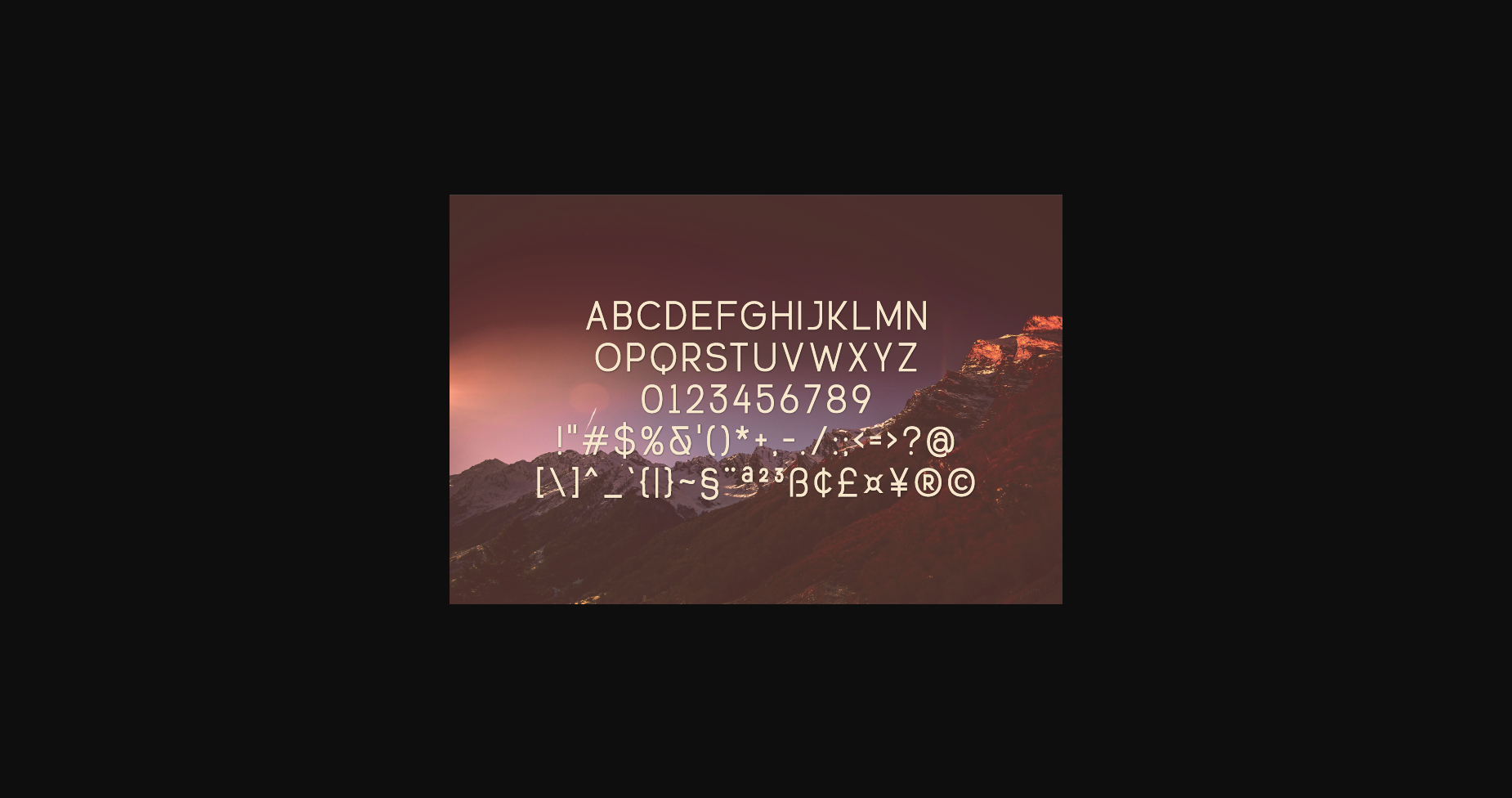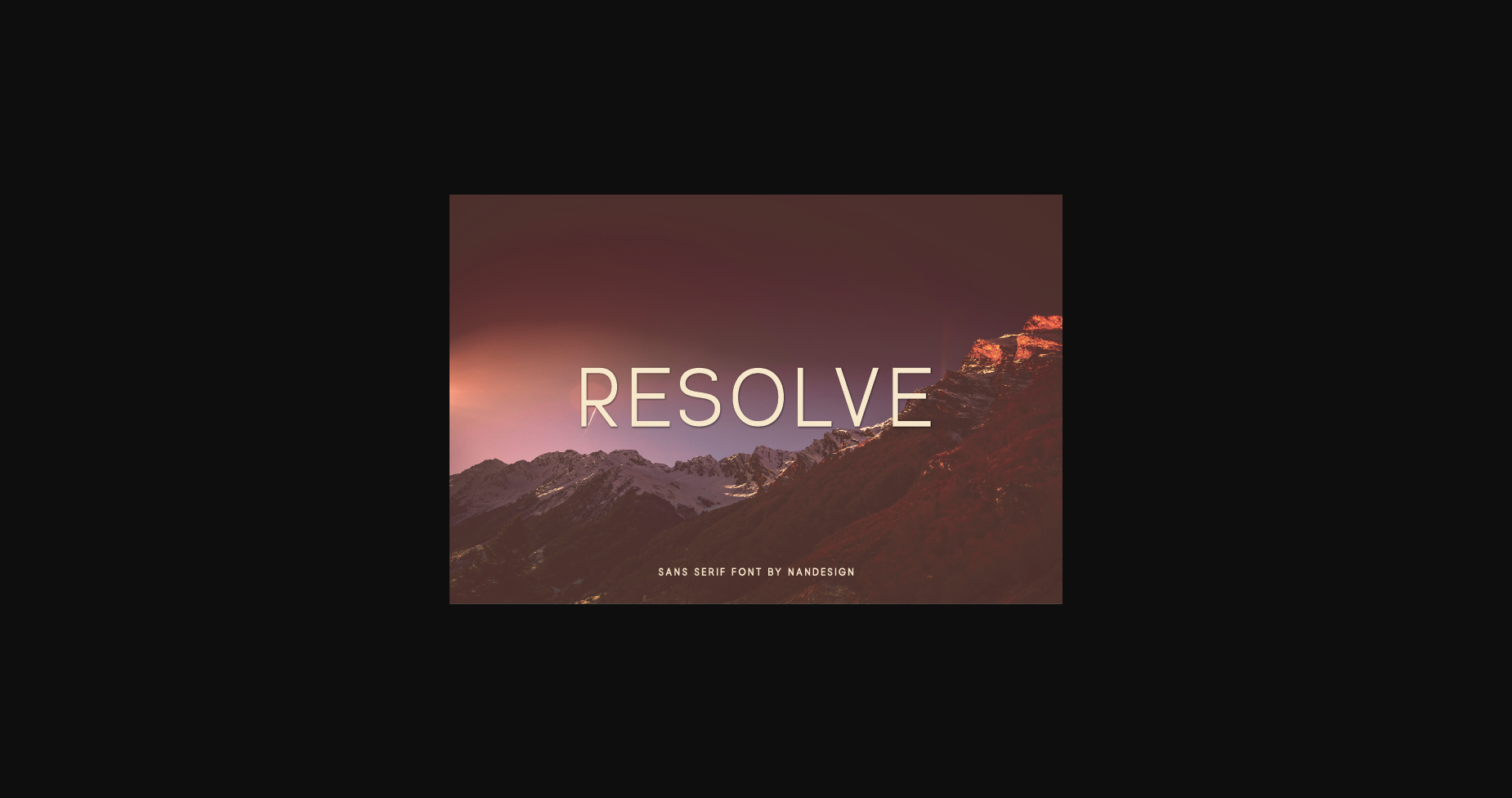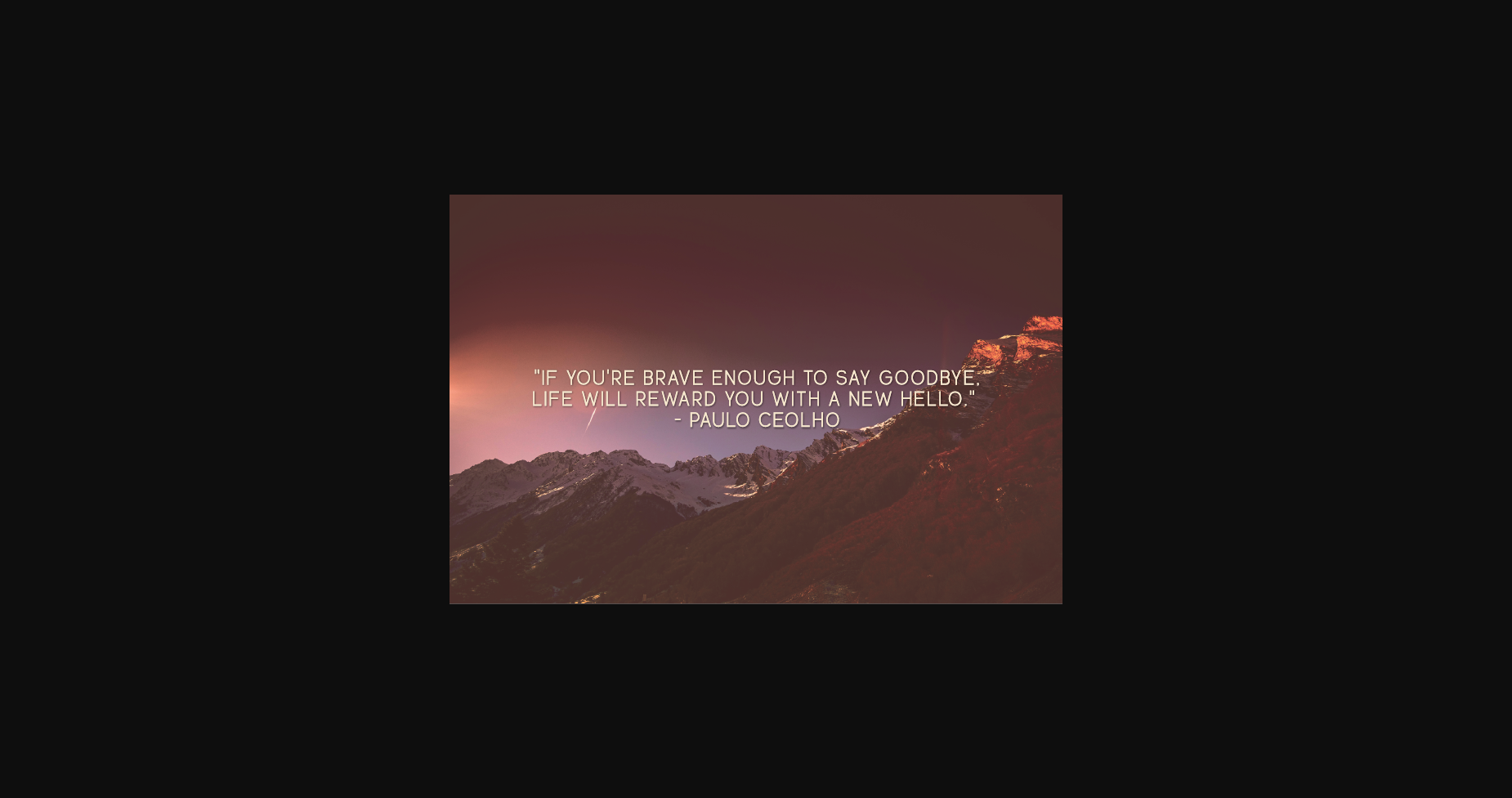
About Resolve Font
Resolve is a neat and simple lettered sans serif font, designed to complement every project you’re working on.
Use it to create beautiful headings, gorgeous invitations, stunning logos, and so much more!